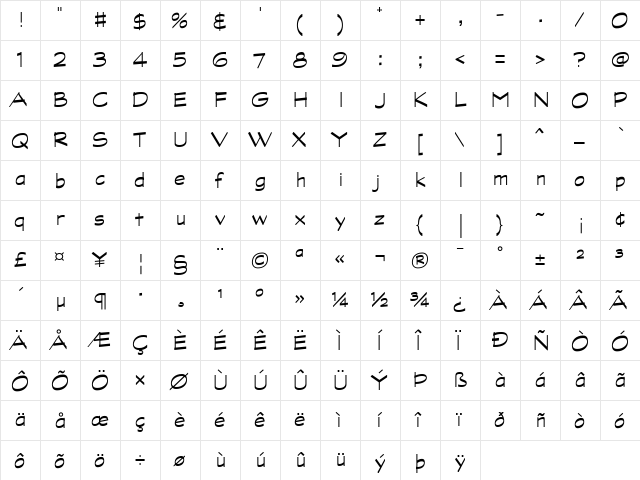
Graphite MM Regular
Design Context for Graphite MM Typeface
Graphite MM takes a measured approach to typography — its balanced proportions and neutral character make it a reliable workhorse for both digital and print work.